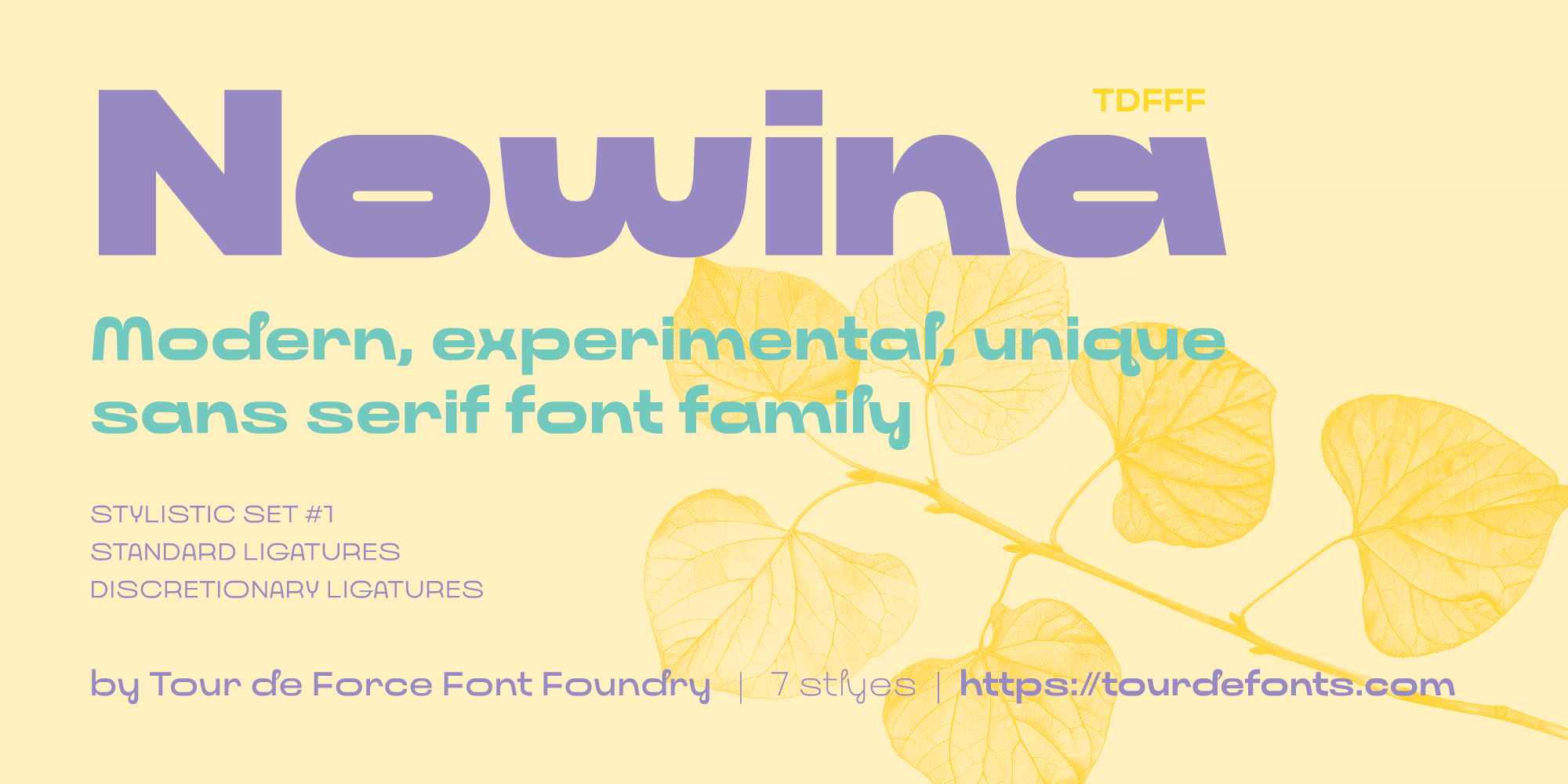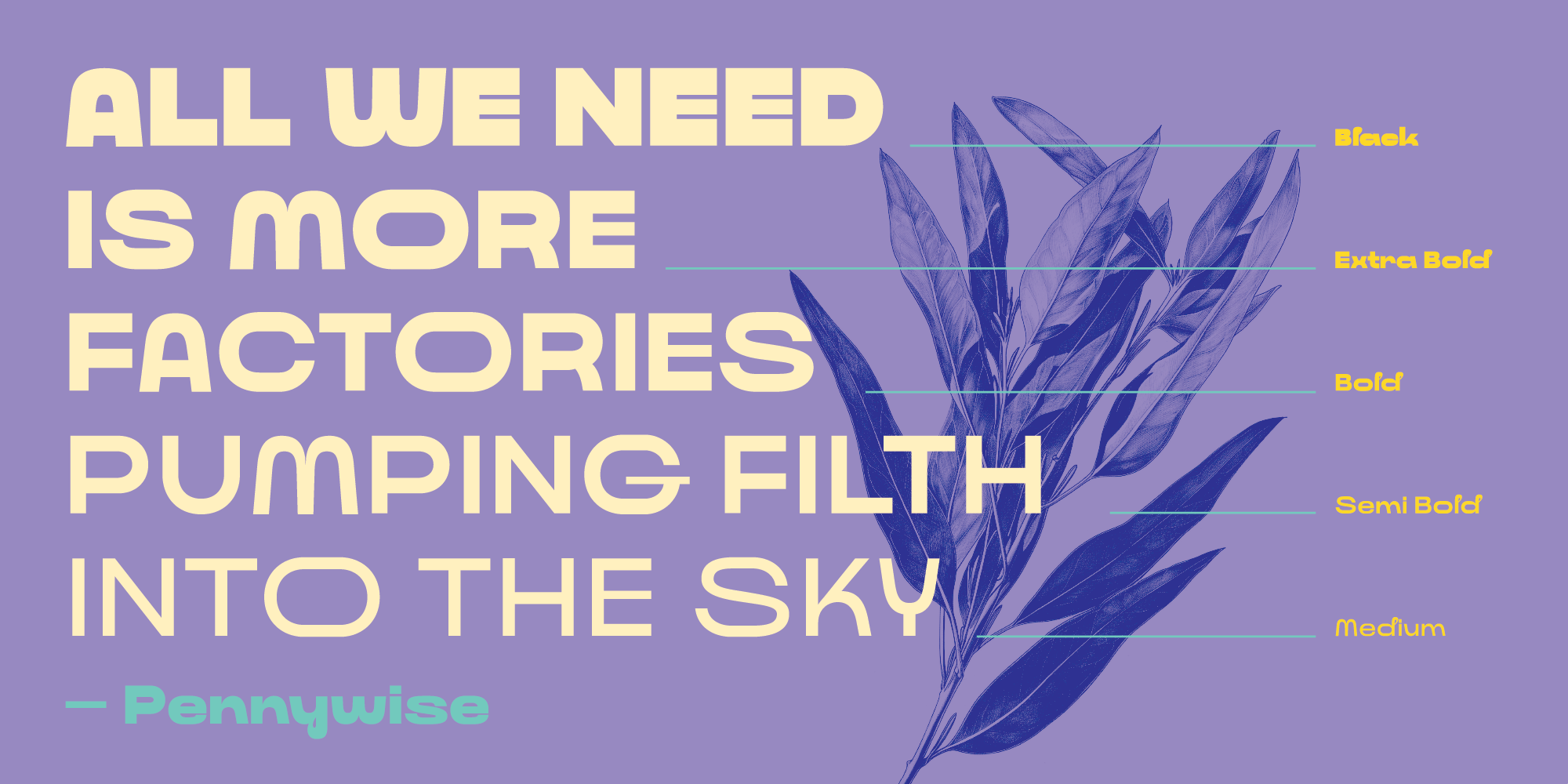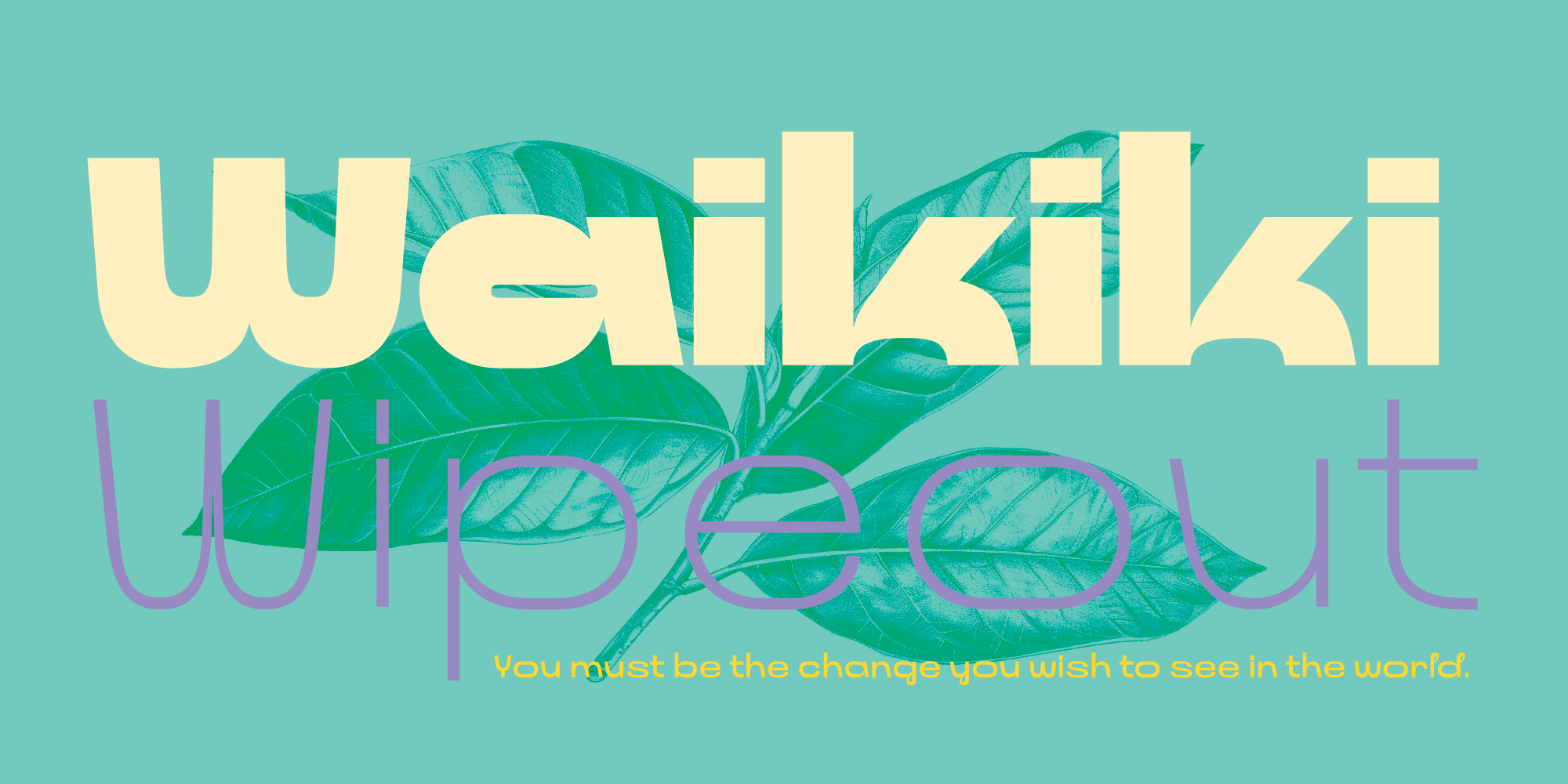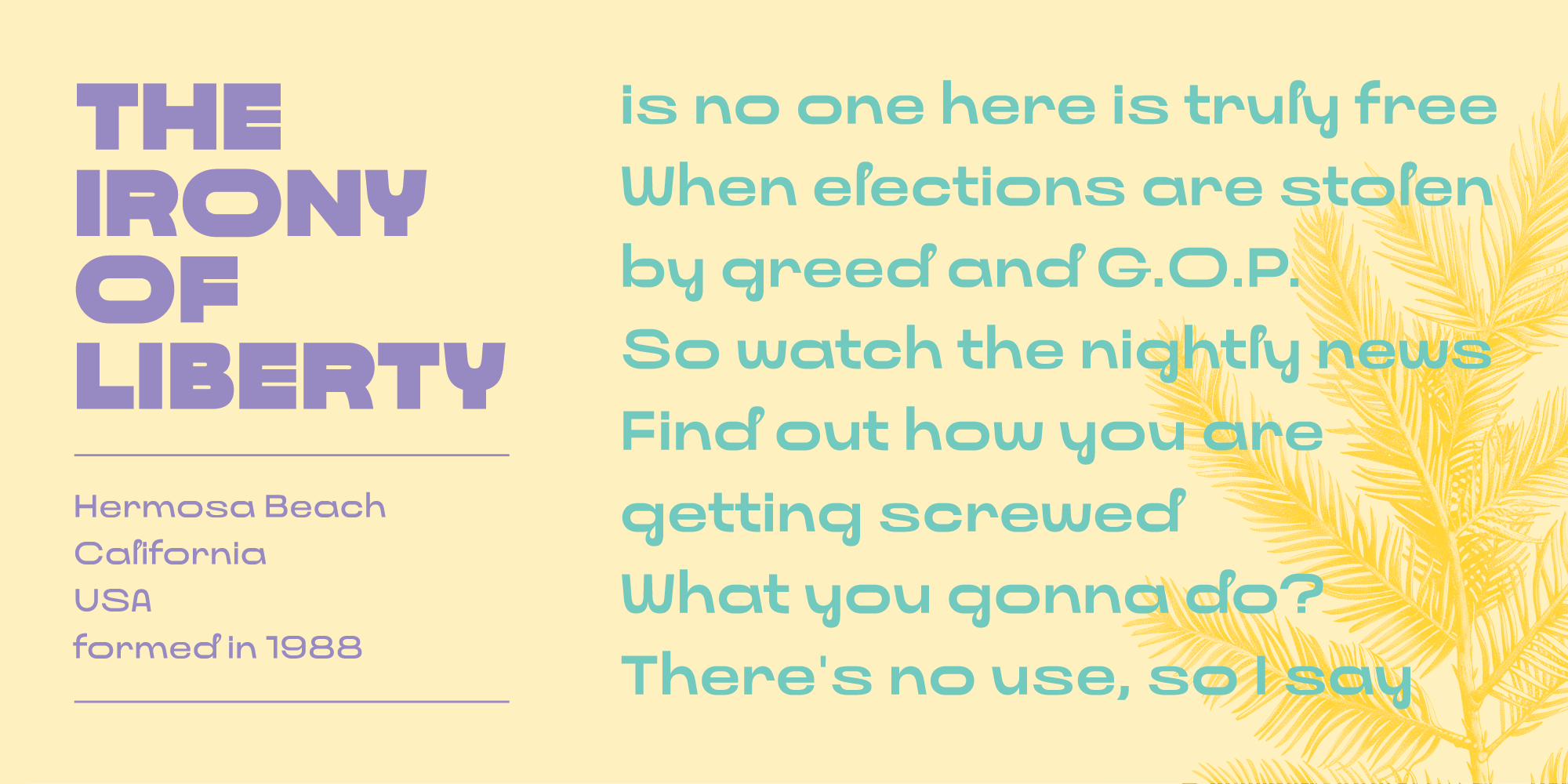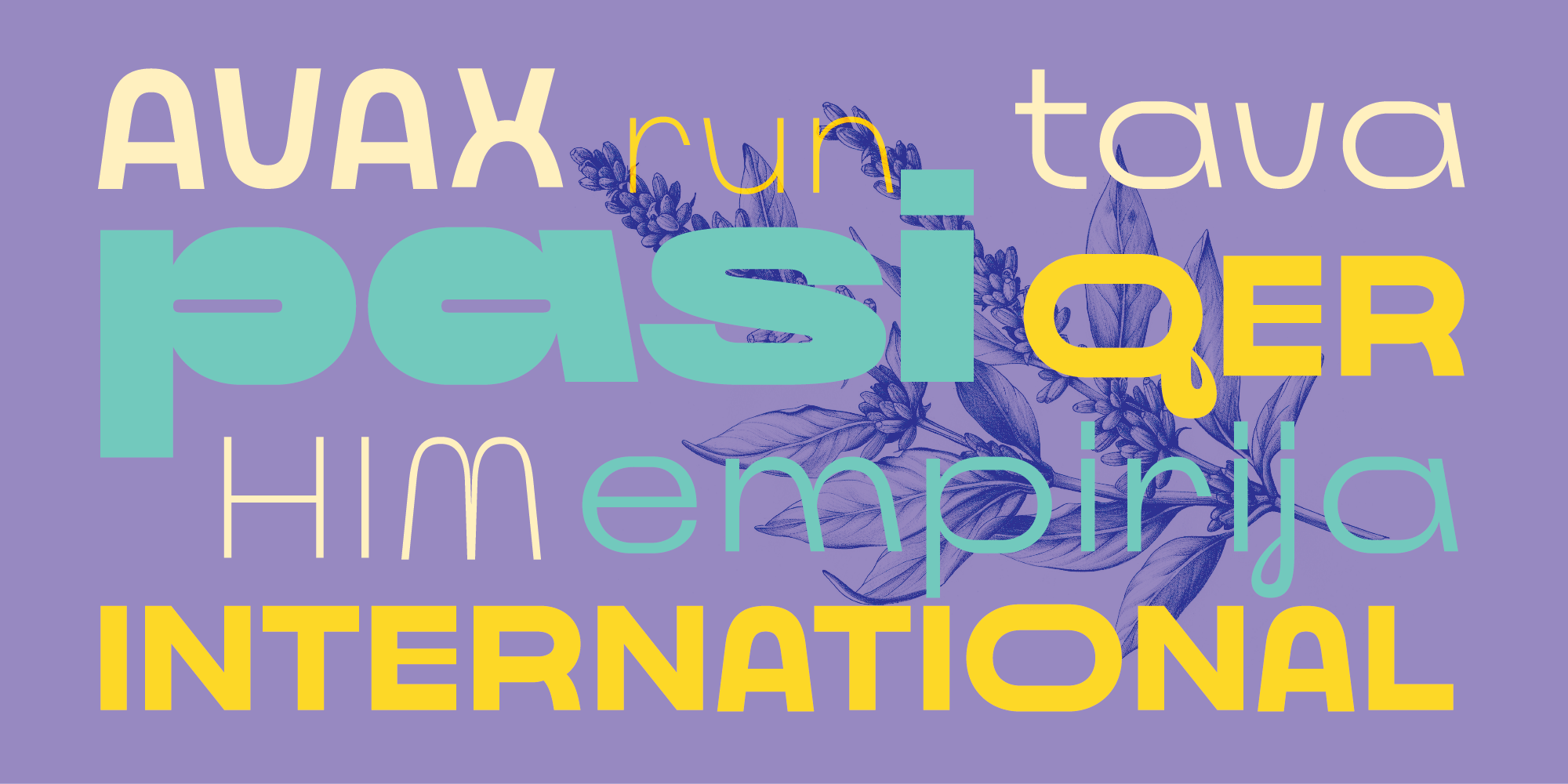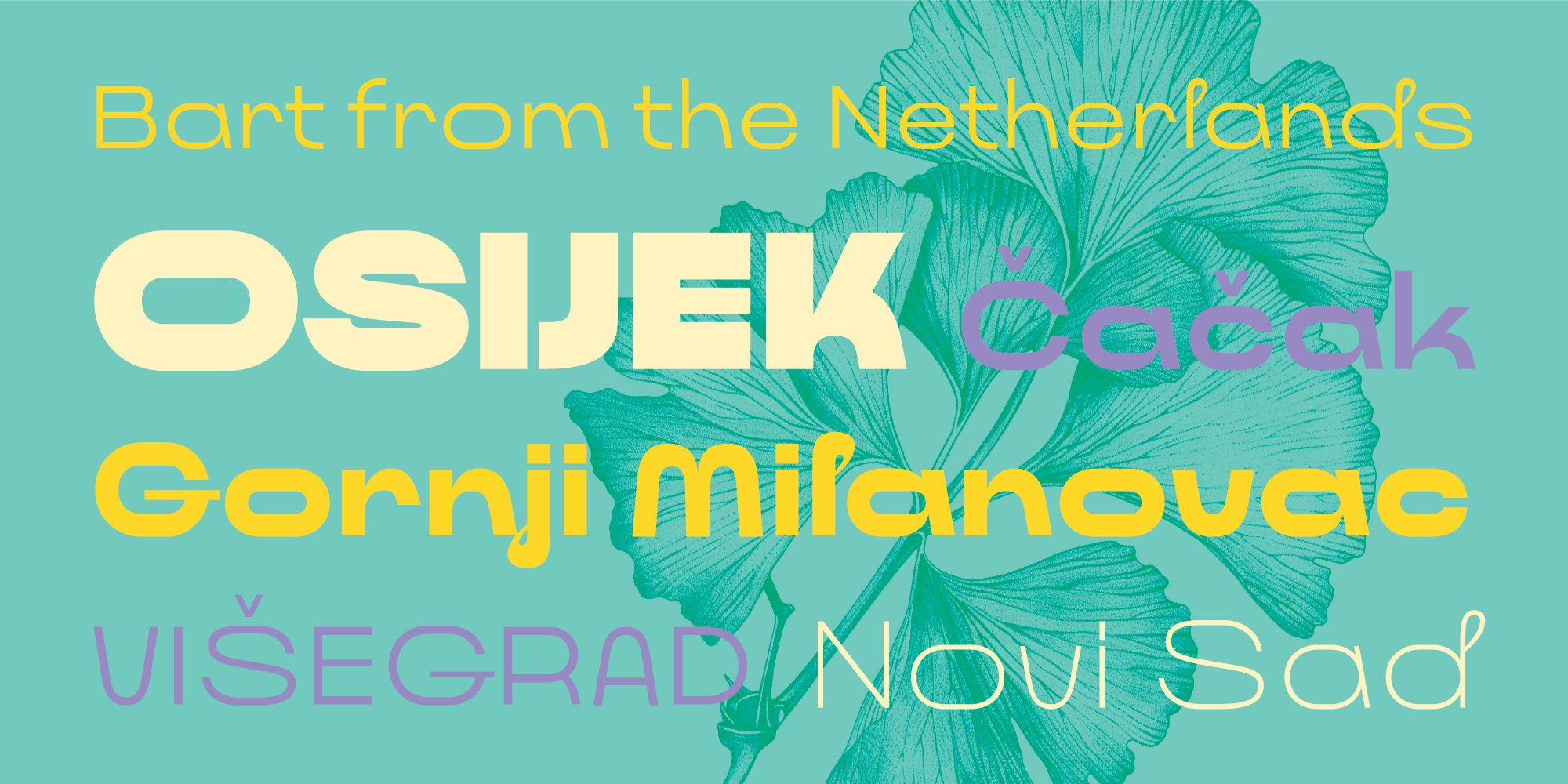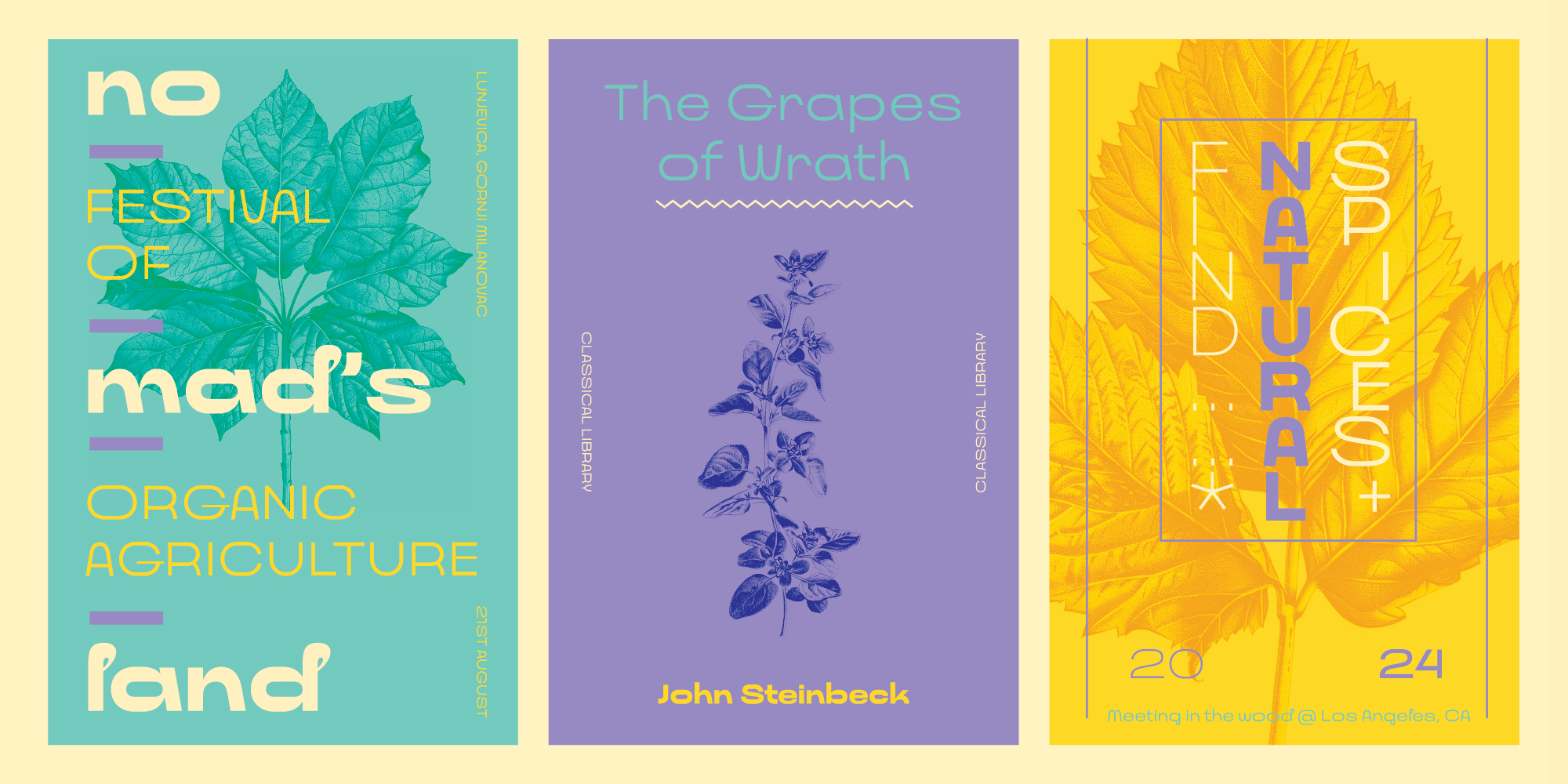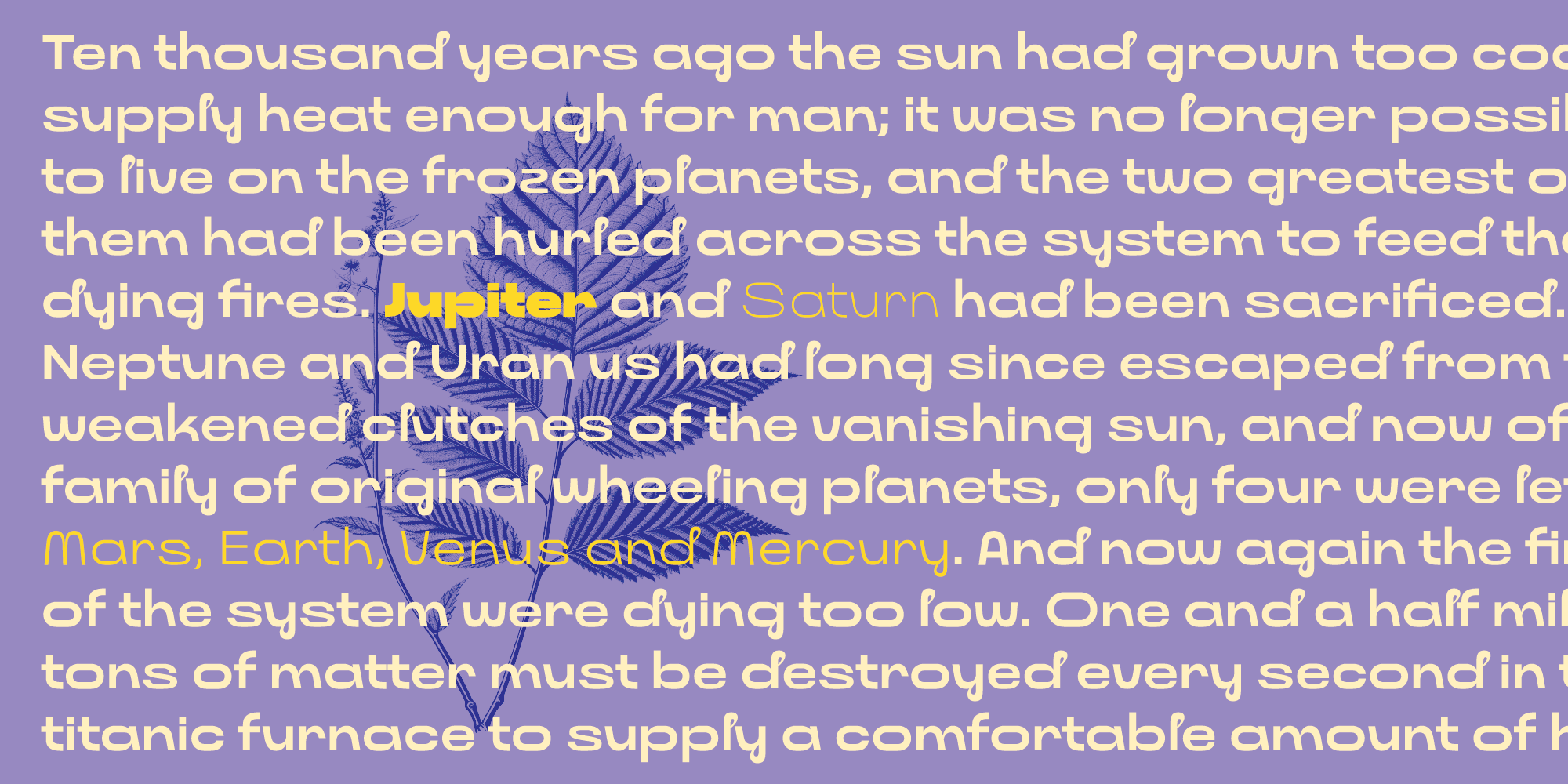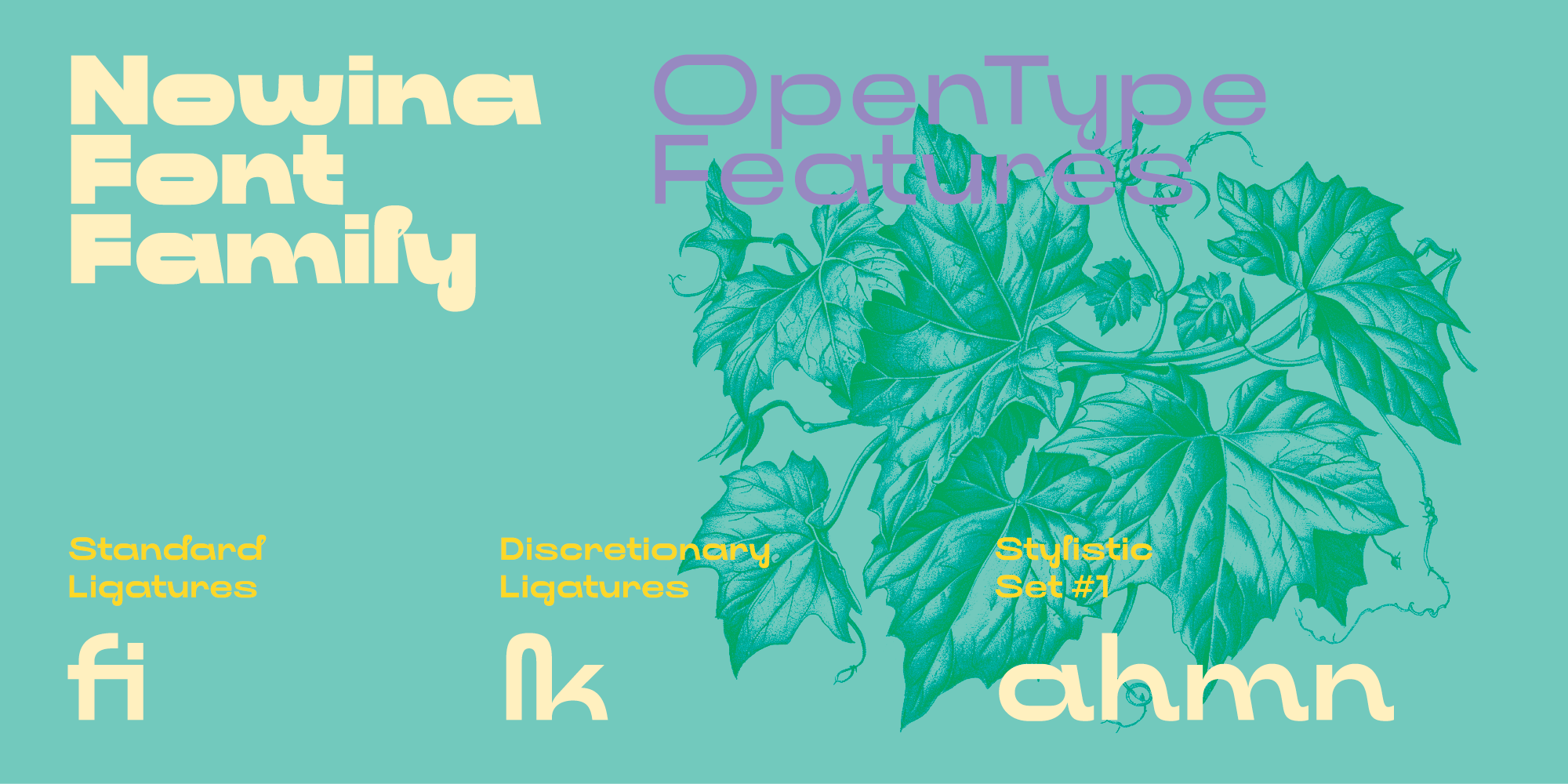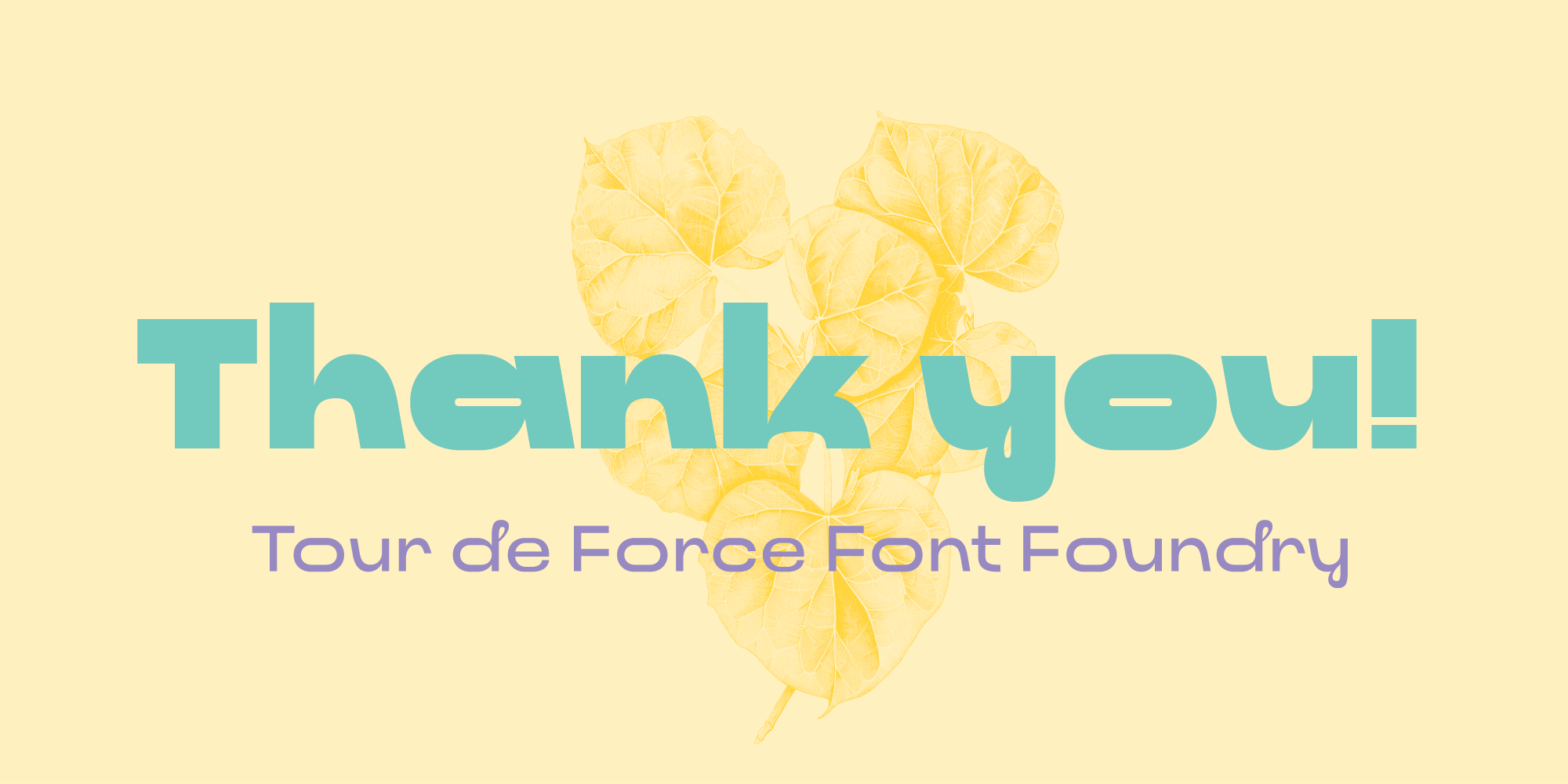
Nowina (meaning "new" or "newspaper") is another font family in our catalogue that could be classified as display sans (after Xperiment Sans and Displayer).
On first look, Nowina font family looks pretty atypical. It's obvious mixture of classical sans, geometrical display and a few calligraphic shapes with disproportion between letter widths that should bring more rhythm in composing words and sentences. Letters look pretty lively, a bit modern, but also with some vintage feeling.
Nowina would be excellent choice for quirky, avantgarde projects – for logo, product names, titles, short sentences or for those with more self-confidence – for total branding. It's perfect for posters, packages, websites or outdoor graphic.
It contains 7 weights – from Light to Black with a few OpenType features such as Standard and Discretionary Ligatures and one Stylistic Set.